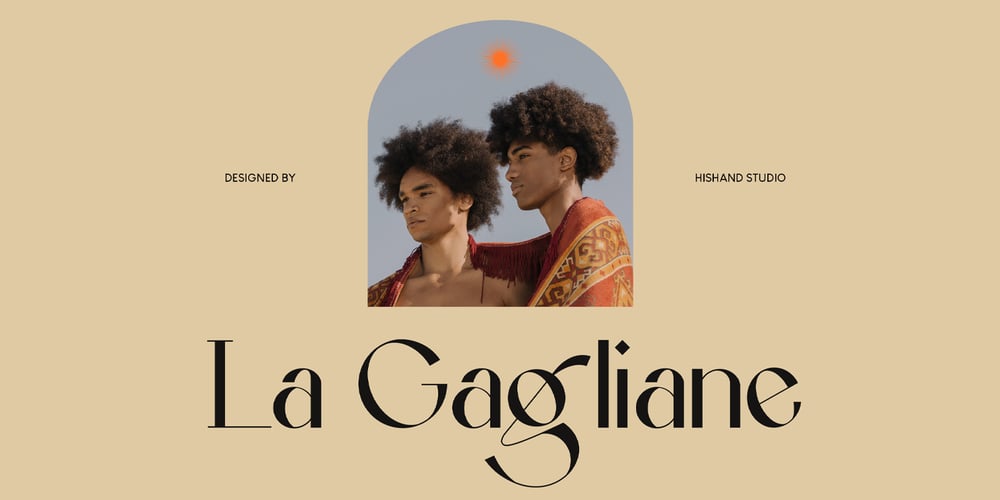
La Gagliane Font Family was designed by Putu Dody Permana and published by Hishand Studio. La Gagliane contains 3 styles and family package options. La Gagliane is beautiful sans serif font that look aesthetic and elegant. Perfect for Logo brand, advertisement, product packaging, social media post, clothing brand, magazine headers and many morecomplete with ligatures alternates regular italic icon kerning multilingual support Shampoo mock up fromhttps://www.graphicsfuel.com/2018/09/dispenser-bottle-psd-mockup/